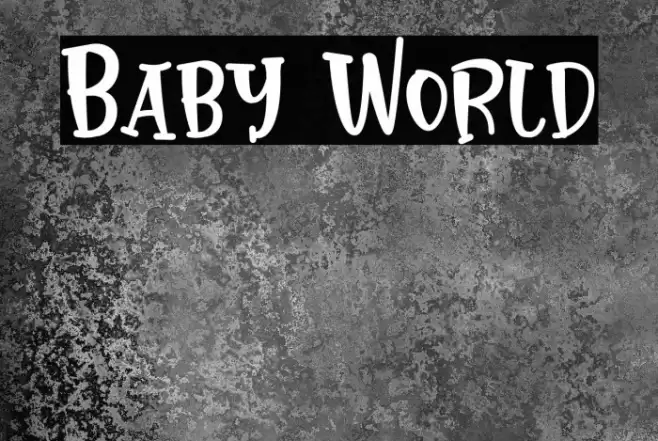
Baby World Font
Baby World Description
This playful and whimsical font features a bold and slightly irregular design, reminiscent of hand-drawn lettering. The characters have a lively and animated appearance, with varying stroke widths that add to its charm. The uppercase and lowercase letters maintain a consistent style, with rounded edges and a slight tilt, giving them a friendly and approachable feel. The numbers and special characters are equally expressive, making this font suitable for creative and fun projects. Its unique style is perfect for capturing attention and conveying a sense of joy and creativity.
A playful, bold font with a hand-drawn, whimsical style from Cartoon fonts.
- Proposed Projects: Ideal for children's books, playful branding, party invitations, and creative posters.
- Overall Style: Playful, Whimsical, Creative
- Use Case: Headlines, Logos, Creative projects